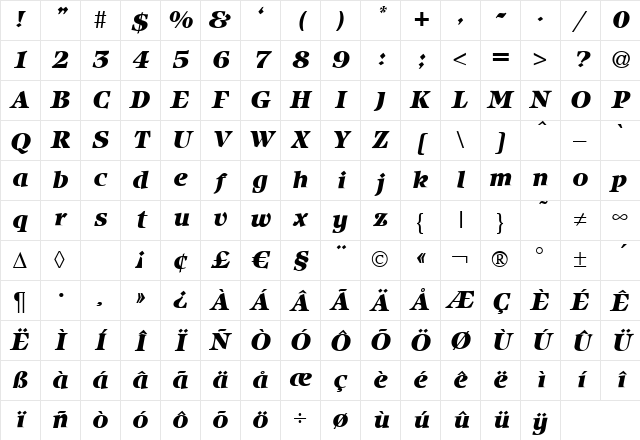
Complete IcebergHeavy Italic glyph index. Displaying only characters natively supported by IcebergHeavy Italic font.
IcebergHeavy is a composed and adaptable typeface that performs quietly and consistently across a wide range of design contexts. The slanted form adds forward momentum and visual energy.